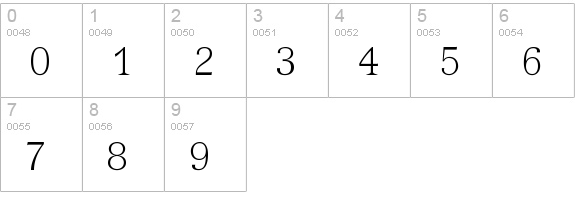
Versailles Light is a refined, elegant variant in the Versailles typeface family \xE2\x80\x94 well suited to elegant body text, refined sub-headings, and luxury branding.
The Versailles Light font is a stunningly elegant typeface that exudes a sense of sophistication and refinement. Its delicate and graceful letterforms are reminiscent of the opulent decorations found in the grand halls of the Palace of Versailles. This font is perfect for adding a touch of class to any design project, whether it be invitations, wedding stationery, or branding materials. Its slender and graceful strokes give it a timeless and luxurious appeal that is sure to captivate the eye. What makes the Versailles Light font even more enticing is the fact that it is available for free download at FontsMarket.com. This means that you can easily enhance your designs without breaking the bank. With its generous x-height and excellent legibility, this font is a versatile choice for both headlines and body text. Its clean lines and subtle curves make it a pleasure to read, ensuring that your message is conveyed effortlessly and beautifully. Whether you're a professional designer or a creative enthusiast, the Versailles Light font is a must-have in your collection. Its timeless beauty and accessibility make it a valuable asset for any project. So why wait? Head over to FontsMarket.com and download this exquisite font for free today.